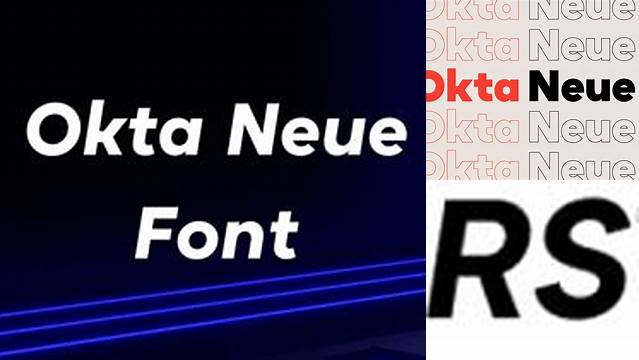
What is Okta Neue Bold Font?
Okta Neue Bold is a modern sans-serif typeface known for its clean lines, readability, and strong visual presence. It's a font that commands attention without being overly flashy, making it an excellent choice for a variety of design projects. But, what exactly makes Okta Neue Bold so special? This font was designed with versatility in mind. Its bold weight gives it a robust and confident appearance, ideal for headlines, titles, and branding materials. The clean, sans-serif design ensures that the text remains legible even at smaller sizes, making it suitable for body text as well. Think about the impact a well-chosen font can have on your design. Okta Neue Bold is perfect for creating a contemporary and professional aesthetic. Whether you're designing a website, crafting a logo, or putting together a presentation, this font can help you achieve a polished and impactful result. Its versatility extends to both print and digital media, ensuring consistency across all your projects. Plus, Okta Neue Bold pairs well with a variety of other fonts, giving you the flexibility to create unique and visually appealing designs. Its bold nature makes it a standout choice for emphasizing key information and creating a strong visual hierarchy. So, if you're aiming for a font that combines modern aesthetics with readability and impact, Okta Neue Bold is definitely worth considering. Let’s move on to where you can actually find this gem for your projects.
How to Use Okta Neue Bold Font in Your Projects
So, you've downloaded Okta Neue Bold font, and now you're probably wondering how to best utilize it in your projects. This font is incredibly versatile, but understanding its strengths will help you make the most of it. When it comes to headings and titles, Okta Neue Bold really shines. Its bold weight commands attention and creates a strong visual hierarchy, making it perfect for grabbing the reader's eye. Think about using it for website headers, presentation titles, or even in print materials like posters and flyers. In branding, Okta Neue Bold can be a fantastic choice for logos and brand names. Its modern and clean aesthetic conveys a sense of professionalism and confidence, which can be crucial for establishing a strong brand identity. Consider how the font's bold nature can help your brand stand out and make a lasting impression. For body text, Okta Neue Bold can also work well, especially in shorter paragraphs or call-to-actions. However, keep in mind that its bold weight might be too overwhelming for large blocks of text. In these cases, you might want to pair it with a lighter font for better readability. When pairing Okta Neue Bold with other fonts, look for typefaces that complement its clean lines and modern style. A classic serif font or a lighter sans-serif can create a balanced and visually appealing contrast. Experiment with different combinations to find what works best for your project. In digital design, ensure that the font is optimized for web use to maintain readability across different devices and screen sizes. Using proper font embedding techniques and considering font loading times can significantly improve the user experience. Overall, Okta Neue Bold is a powerful tool for creating impactful designs. By understanding its characteristics and applying it strategically, you can elevate your projects and achieve a professional and polished look. Now, let’s delve into some specific design applications where Okta Neue Bold can truly make a difference.
Design Applications of Okta Neue Bold Font
The versatility of Okta Neue Bold font makes it suitable for a wide array of design applications. From web design to print media, this font can enhance the visual appeal and readability of your projects. Let's explore some specific areas where Okta Neue Bold can truly shine. In web design, Okta Neue Bold is an excellent choice for headings, navigation menus, and call-to-action buttons. Its bold presence ensures that important elements stand out, guiding users through the website effectively. Consider using it to create a strong visual hierarchy and improve the overall user experience. For branding, Okta Neue Bold can be a cornerstone of your visual identity. Its modern and professional aesthetic makes it ideal for logos, brand guidelines, and marketing materials. Think about how the font can convey your brand's personality and values. In print design, Okta Neue Bold works well for posters, brochures, and flyers. Its legibility at various sizes makes it suitable for both headlines and body text. Whether you're creating a promotional piece or an informational document, this font can help you communicate your message clearly and effectively. When it comes to editorial design, Okta Neue Bold can add a touch of sophistication to magazines, newsletters, and reports. Use it for headings, subheadings, and captions to create a visually engaging layout. Its clean lines and strong presence will enhance the overall readability and impact of your publications. In user interface (UI) design, Okta Neue Bold can be used to create clear and intuitive interfaces. Its readability makes it suitable for labels, buttons, and other UI elements. Think about how the font can contribute to a seamless and user-friendly experience. Overall, Okta Neue Bold is a versatile font that can elevate the design of your projects across various mediums. By understanding its strengths and applying it strategically, you can achieve a professional and polished look. Next, we'll tackle some frequently asked questions about downloading and using fonts to ensure you're fully equipped to handle this aspect of design.
Conclusion and Key Takeaways
In conclusion, Okta Neue Bold font is a versatile and impactful typeface that can elevate your design projects. We've covered a lot in this guide, from understanding what Okta Neue Bold is, to finding it for free download, and how to use it effectively in various design applications. Remember, the key to making the most of this font lies in understanding its strengths and applying it strategically. Whether you're working on web design, branding, print materials, or UI design, Okta Neue Bold can help you achieve a professional and polished look. One of the main takeaways is the importance of downloading fonts legally. Always ensure you're using reputable sources and that you understand the licensing terms before incorporating any font into your projects, especially for commercial use. We also highlighted the significance of pairing Okta Neue Bold with other fonts to create visually appealing and balanced designs. Experimenting with different combinations can lead to unique and impactful results. Consider the context in which you're using the font. Is it for headings, body text, or a logo? Adjust your approach accordingly to maximize its effectiveness. Another crucial aspect is font management. Keeping your font library organized and understanding font licensing terms will save you time and prevent potential legal issues. By now, you should have a solid understanding of how to download Okta Neue Bold font and integrate it seamlessly into your design workflow. Embrace its clean lines, bold presence, and versatility to create designs that truly stand out. Happy designing, guys! And remember, the right font can make all the difference in conveying your message and capturing your audience's attention. So, go ahead and explore the possibilities with Okta Neue Bold and let your creativity shine!